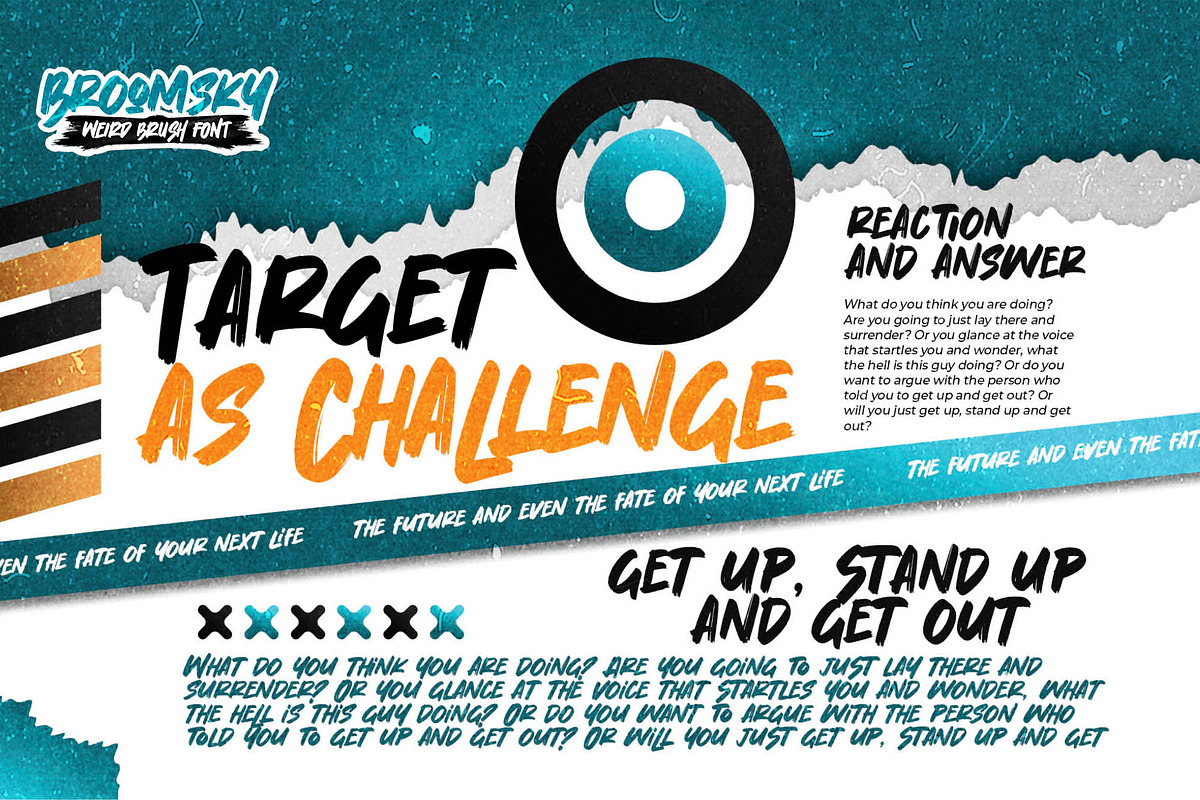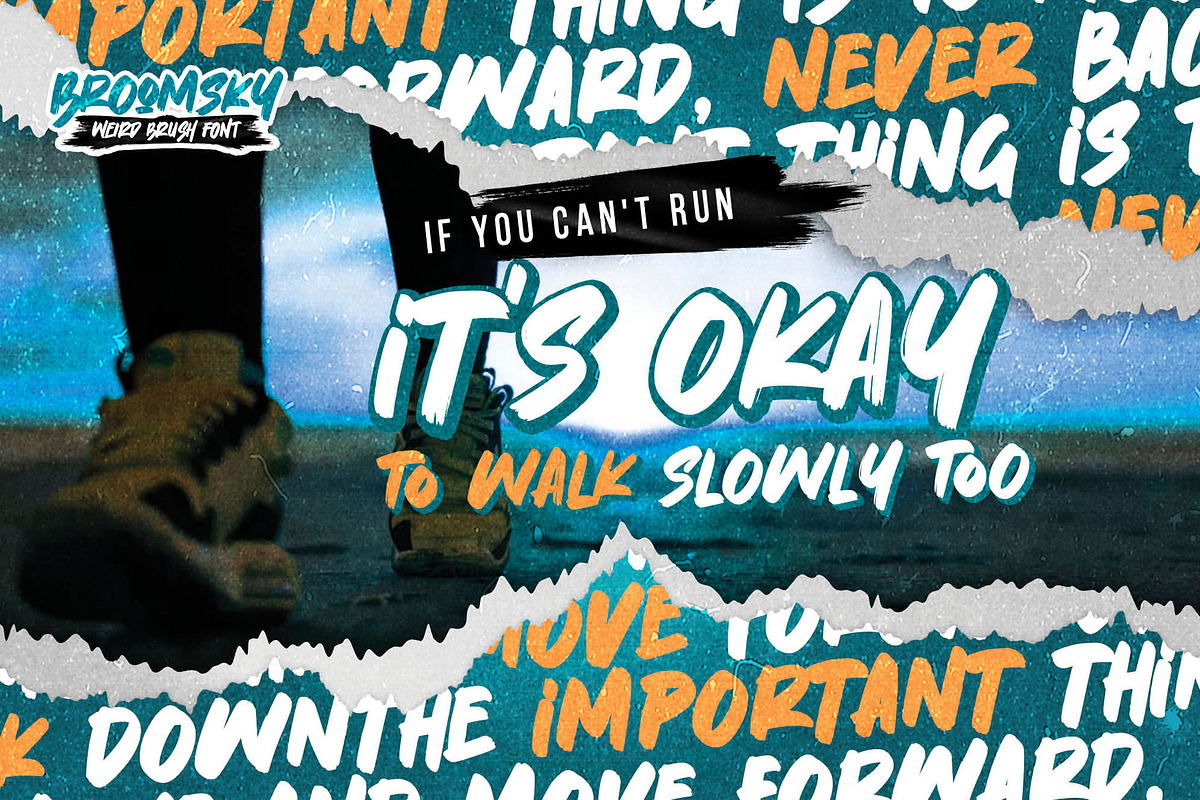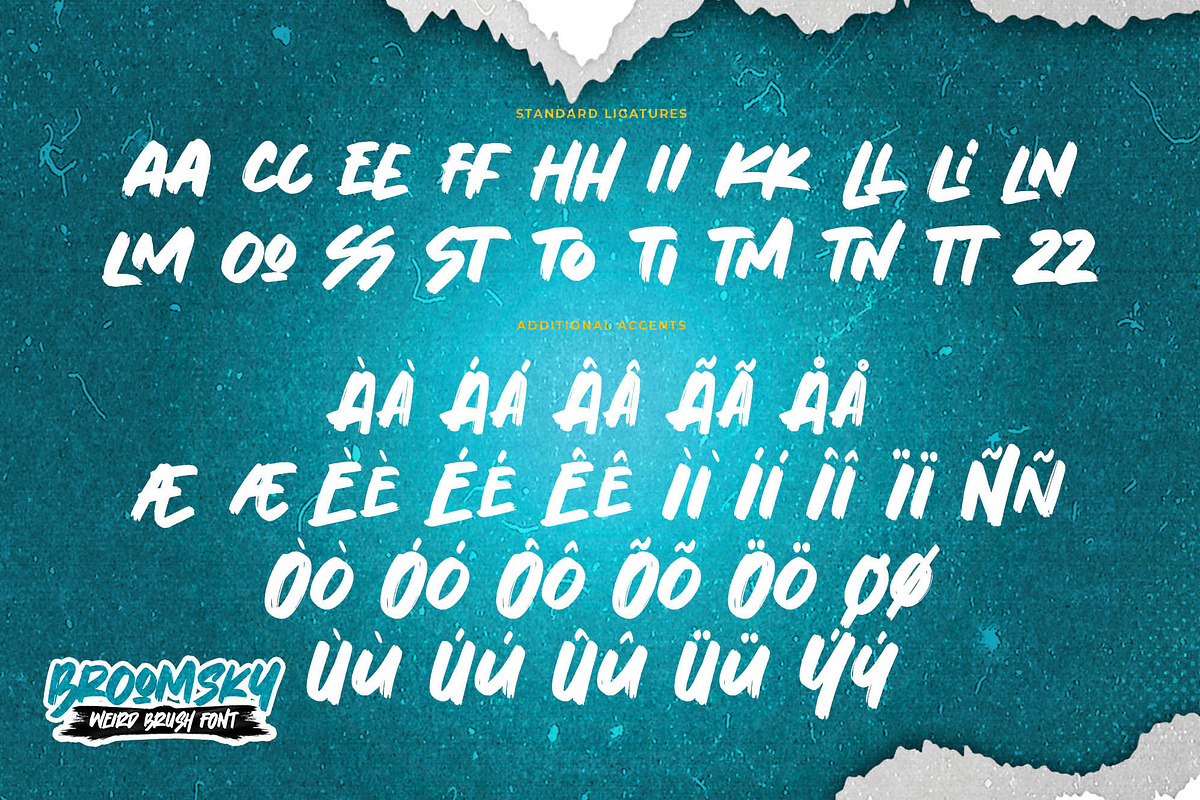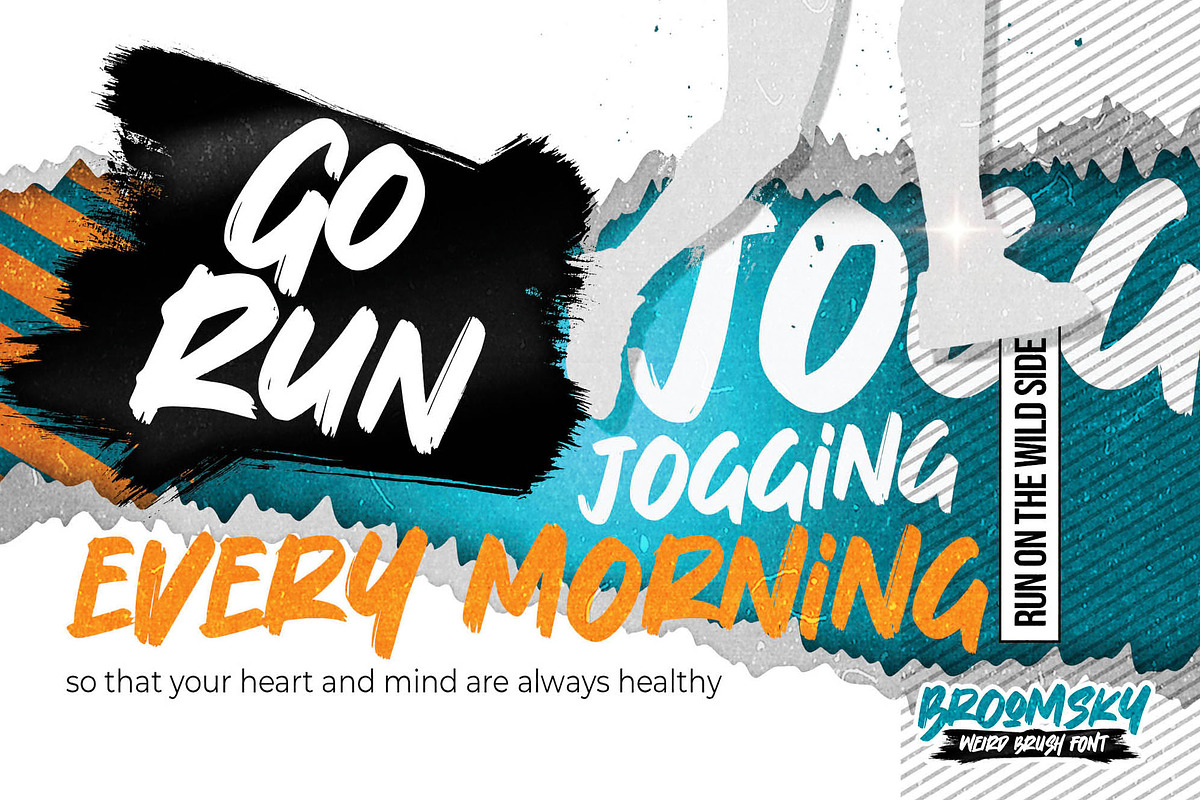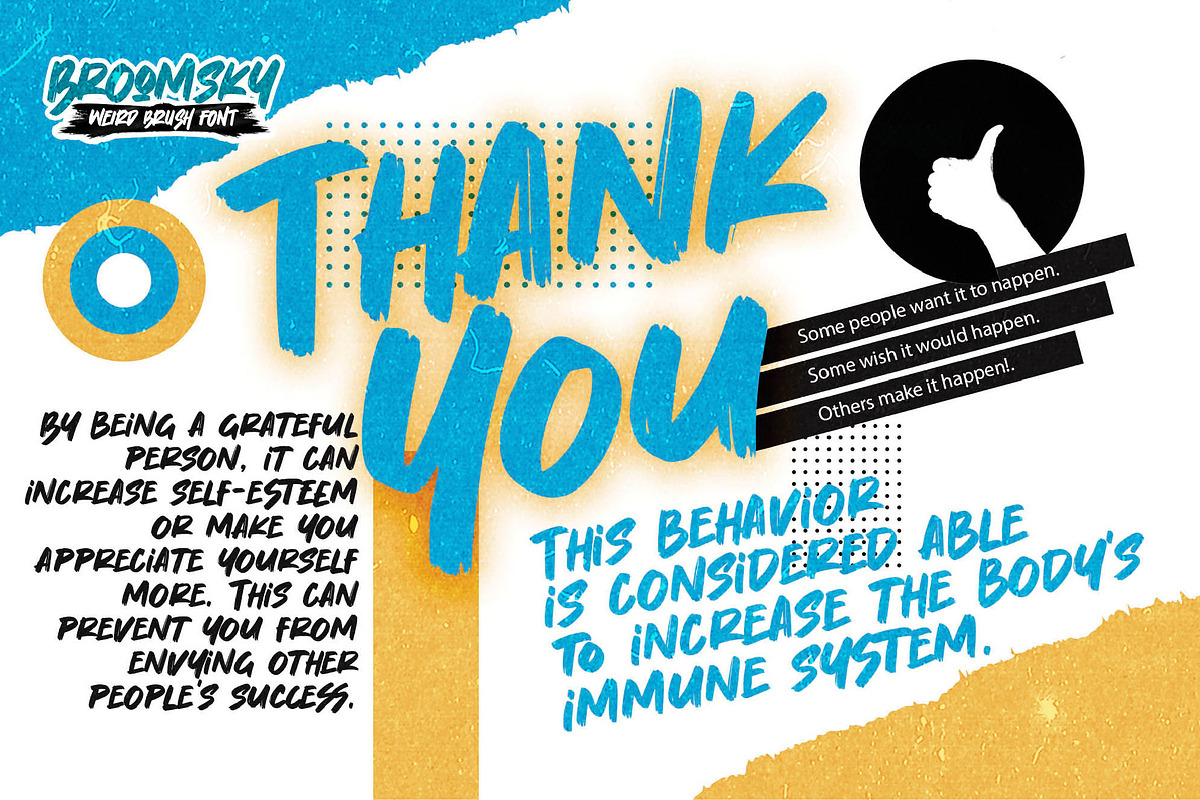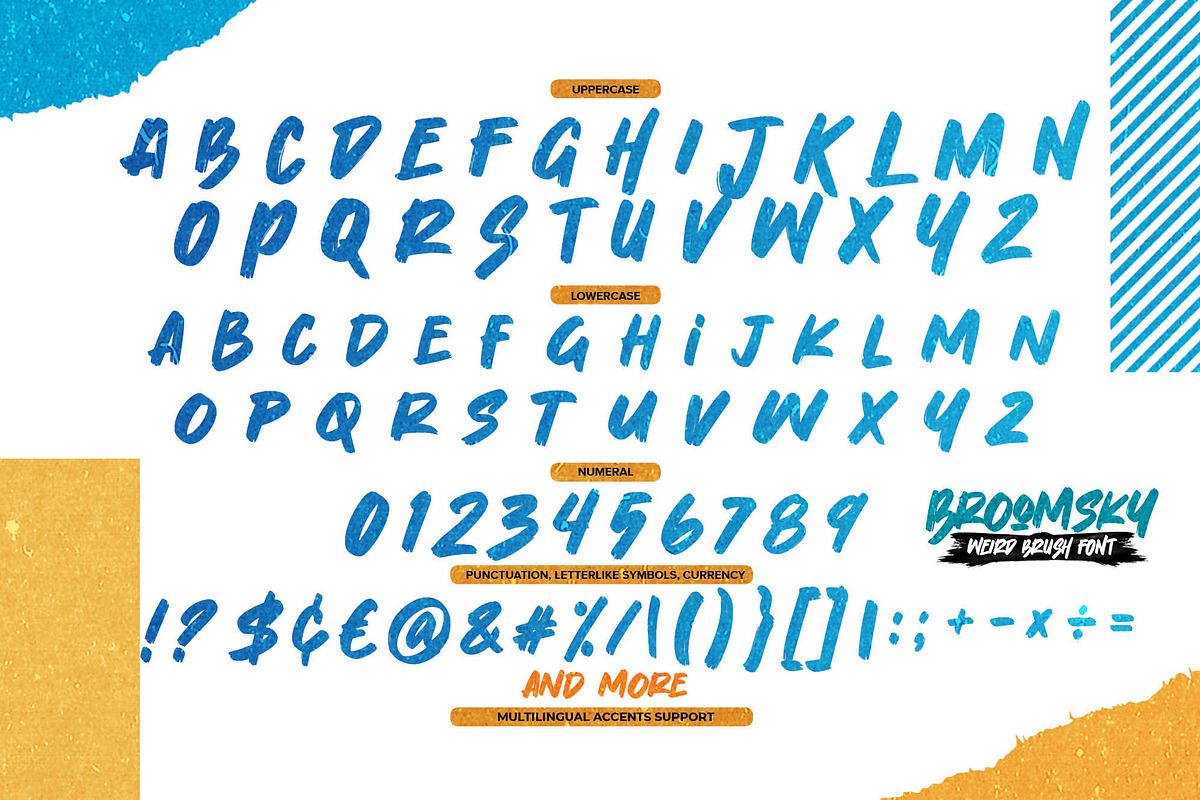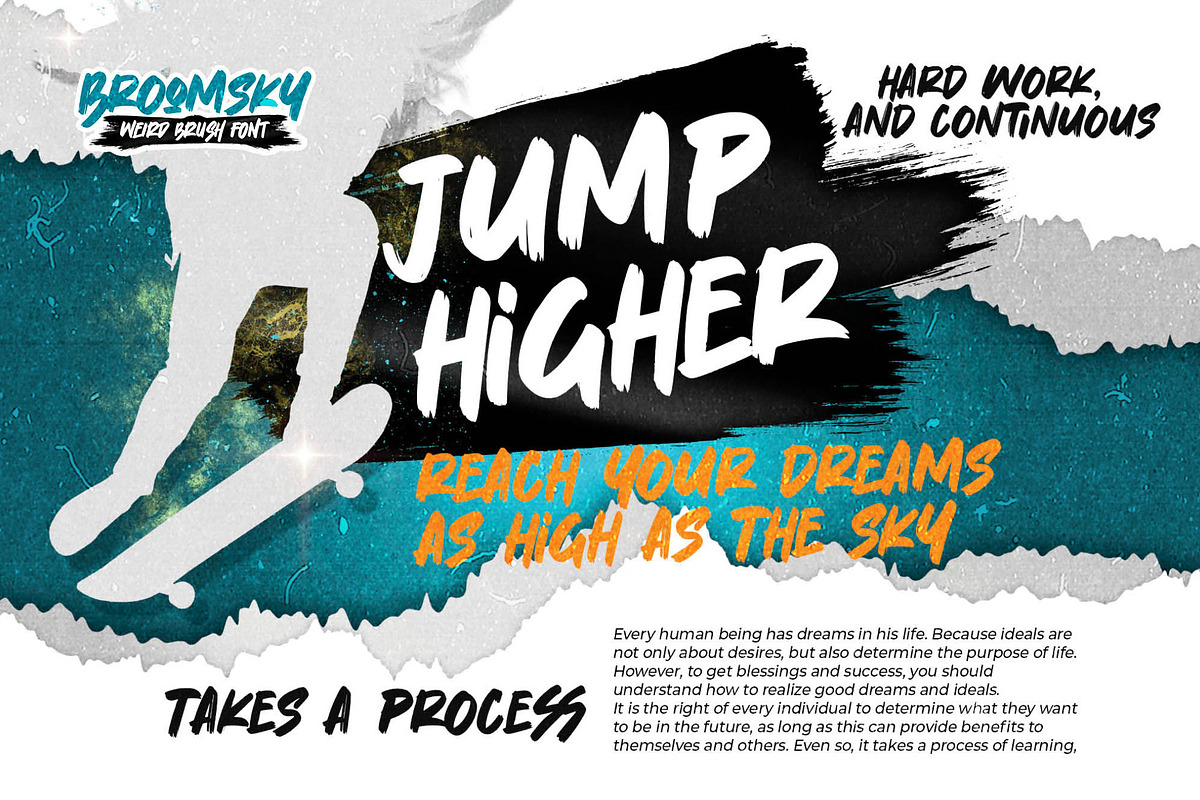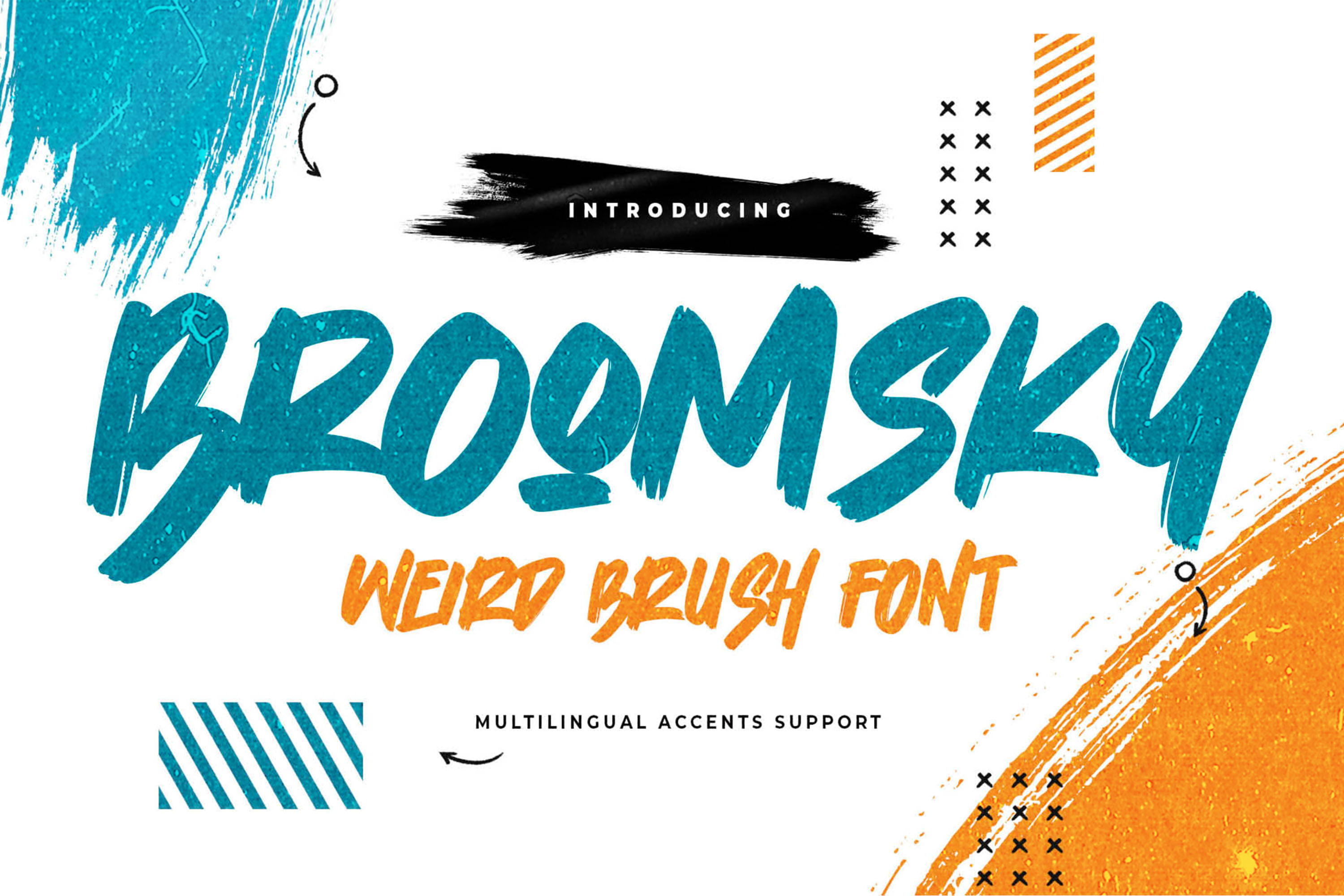
Broomsky – Weird Brush Font
BROOMSKY
Broomsky is a wild and expressive brush font designed to bring raw energy and artistic character to your creative projects. With bold brush strokes, irregular shapes, and natural textured details, Broomsky delivers a dramatic, handcrafted feel—perfect for designs that need strong personality, movement, and visual impact.
Great for:
• branding & logos • posters, flyers, and merchandise • album covers • social media graphics • invitations & greeting cards • packaging design • creative editorial layouts • handwritten quotes
Style & Feel:
expressive • energetic • bold • textured • handcrafted